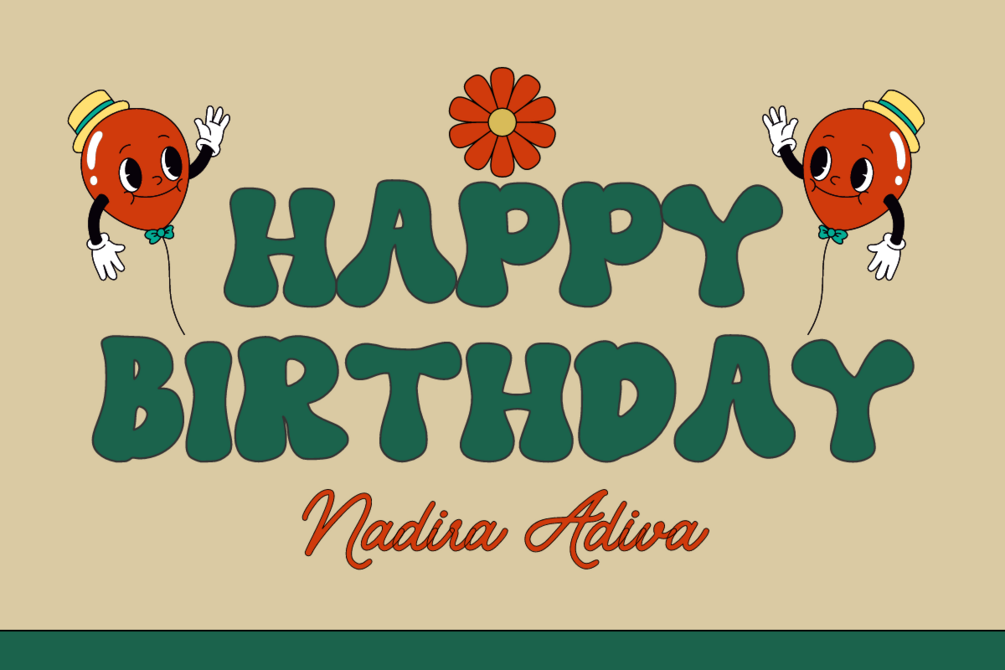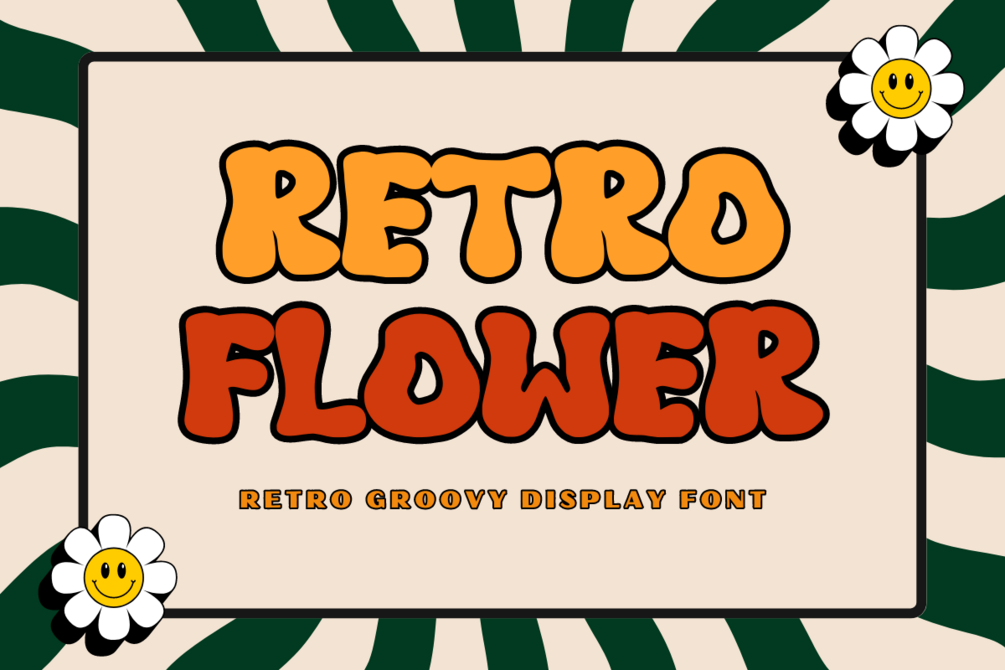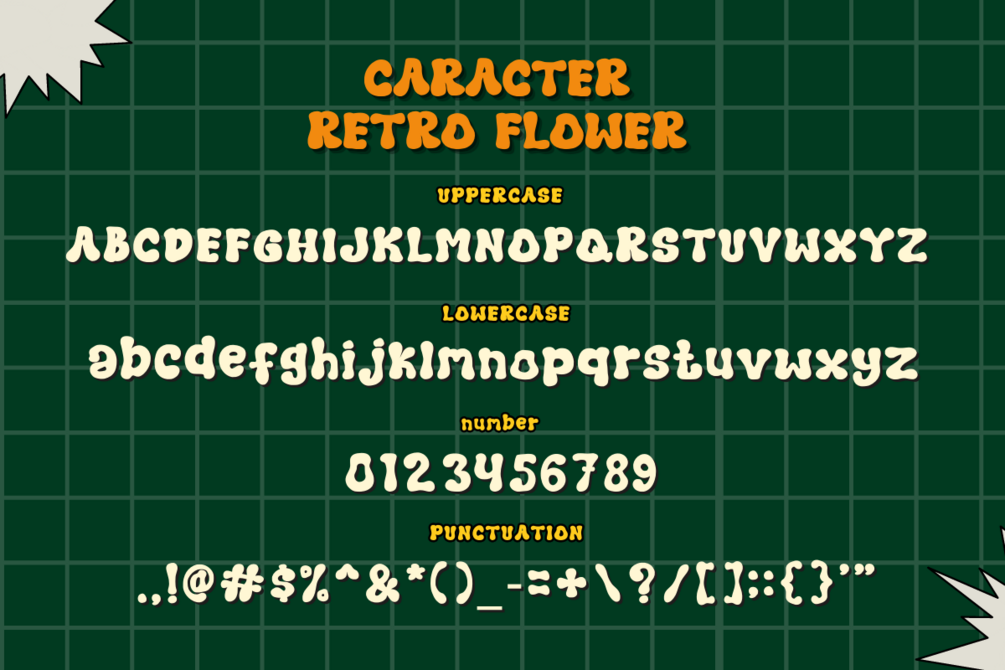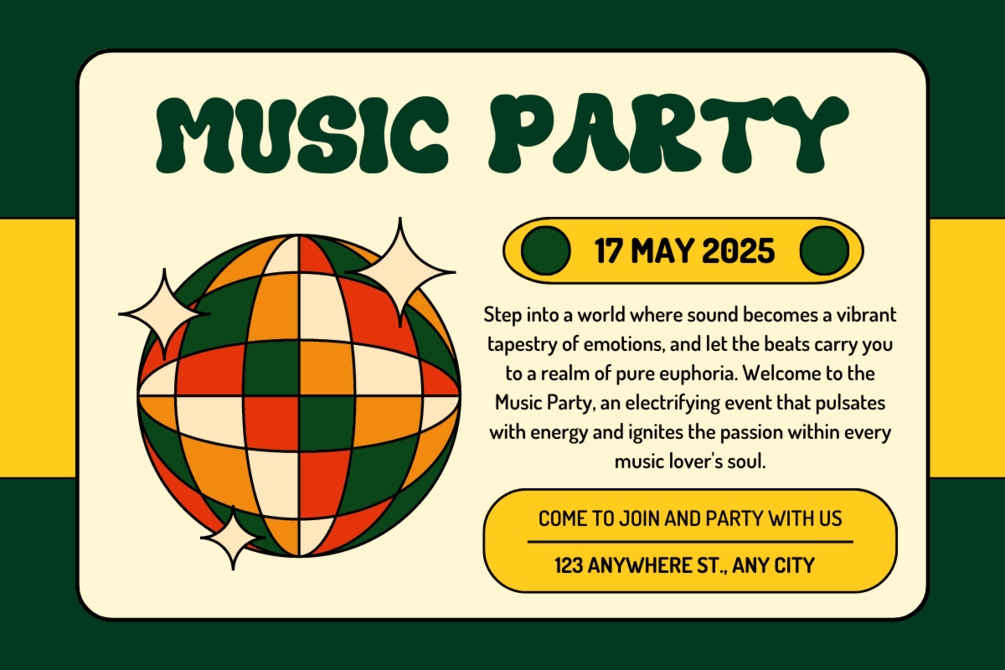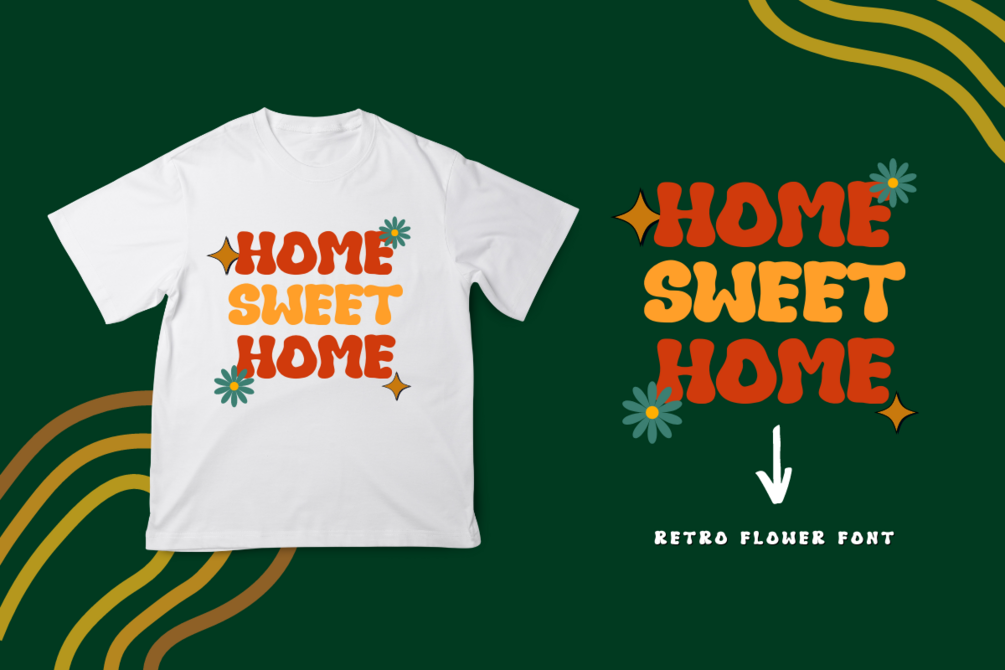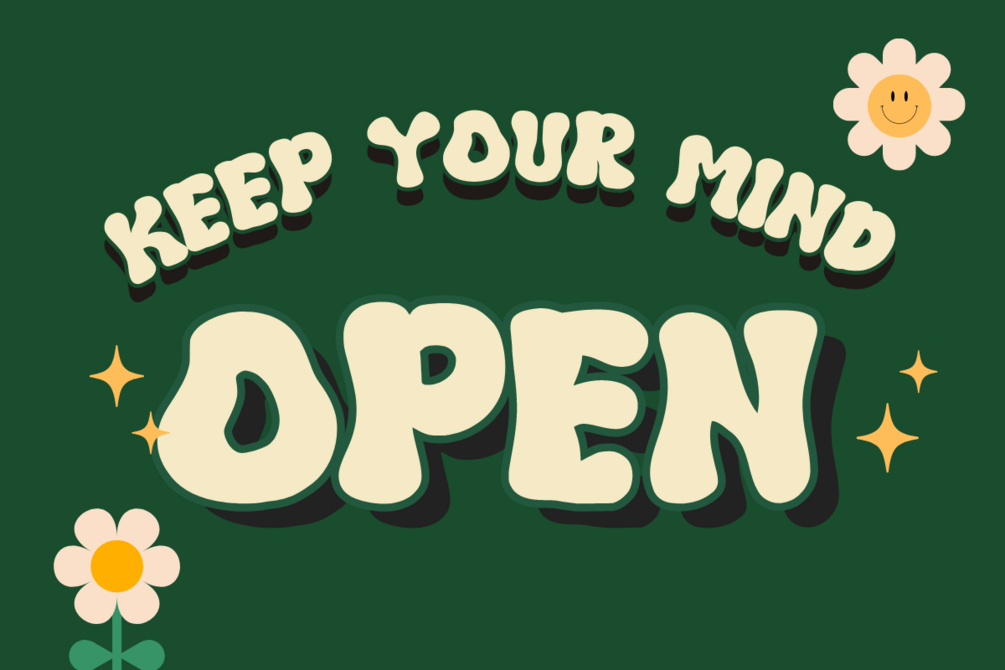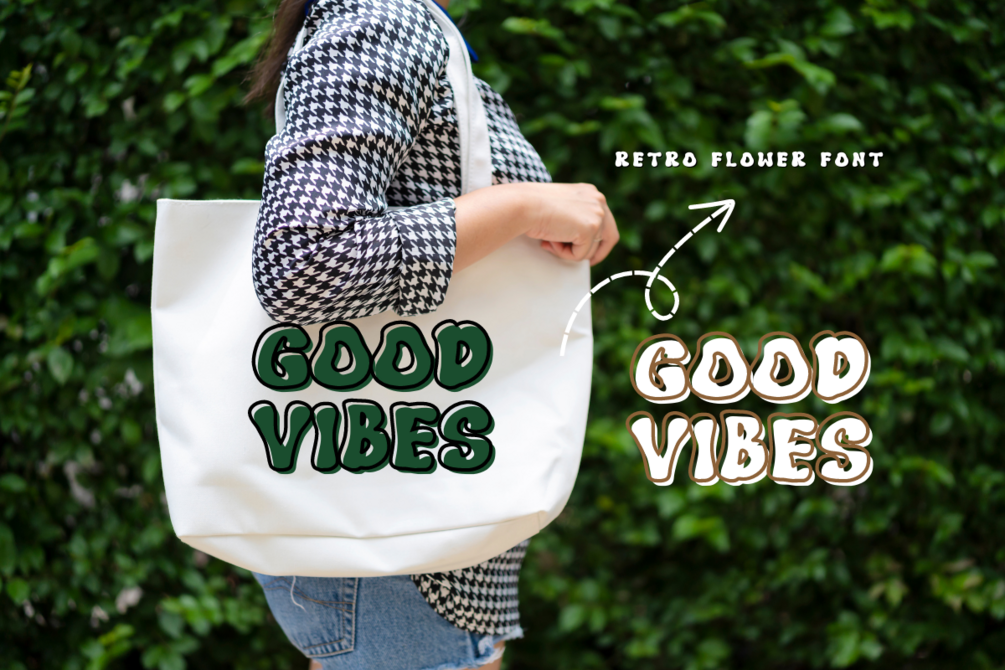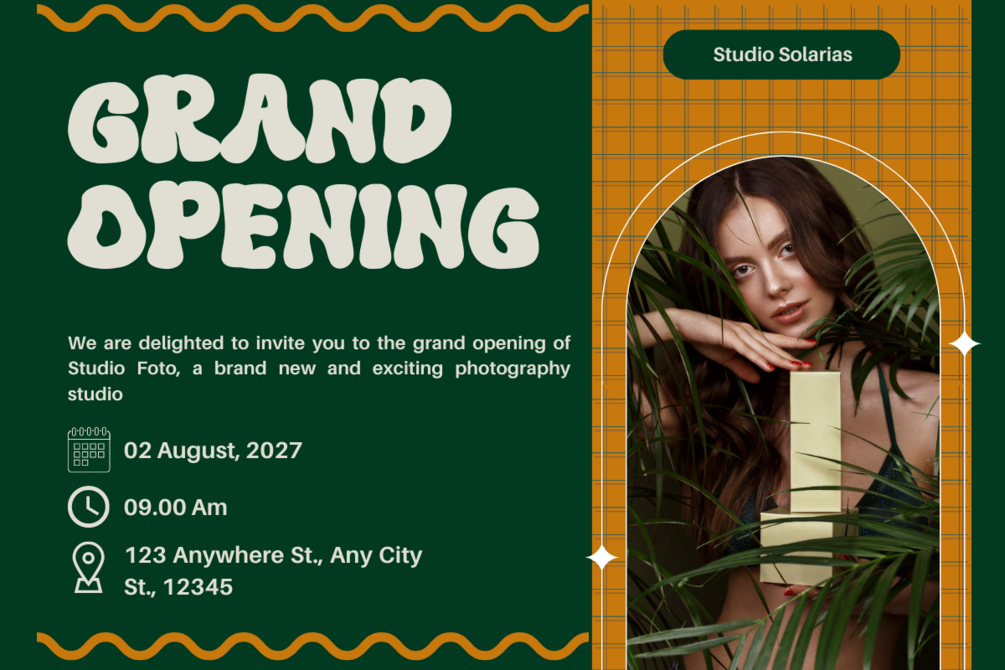
Retro Flower - Retro Groovy Display Font
Retro Flower is a versatile, stylish, and fun retro display font that’s perfect for a wide spectrum of applications such as greeting cards, news headlines, and more.
Add this to one of your creative projects, and it will give a romantic impression that is beautiful, as well as funny. Get inspired by her unique and beautiful style and add it to your favorite designs!